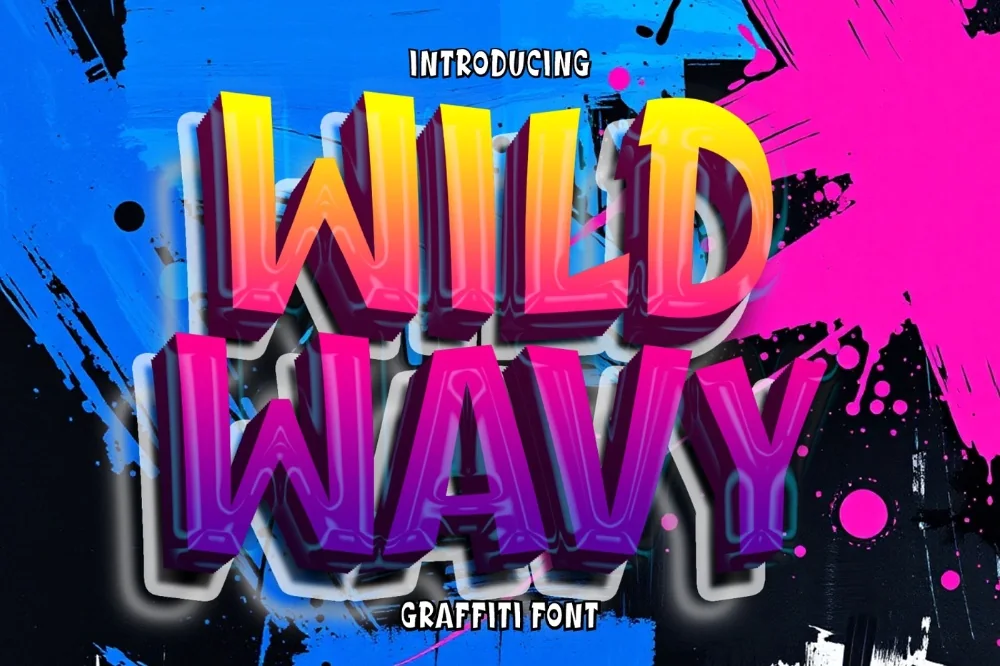
Wavy Wildstyle Display Font
Every collection needs a wavy graffiti font that can carry a whole layout on its own. This is that font. Curling, twisting shapes that never sit still. The most decorative alphabet in the set.
Strokes bend back on themselves and finish in tight curls, and several characters extend well above and below the line. Give it generous line spacing so those extensions have room.
Suits festival posters, tattoo flash, statement apparel, and large-format wall art.
Pair it with something quiet. A plain sans for body copy lets the lettering do its job instead of fighting the paragraph underneath it for attention.